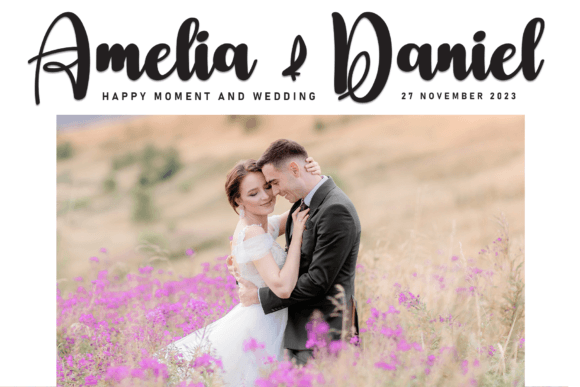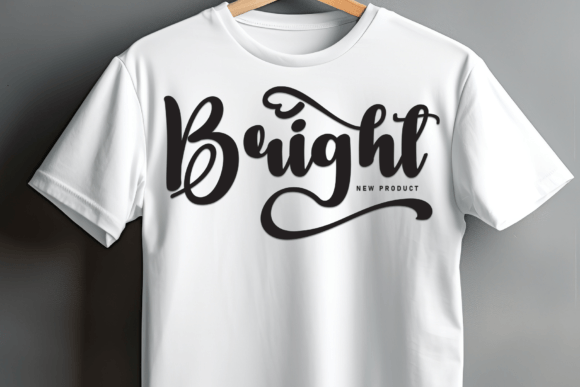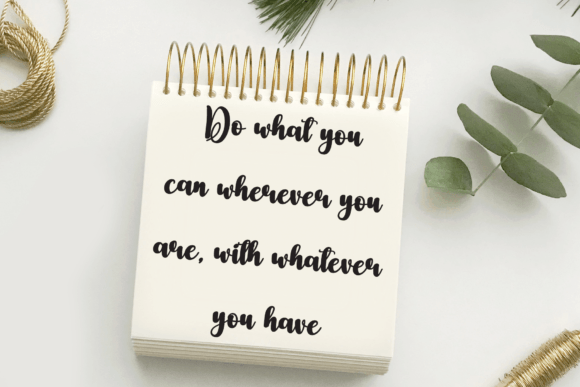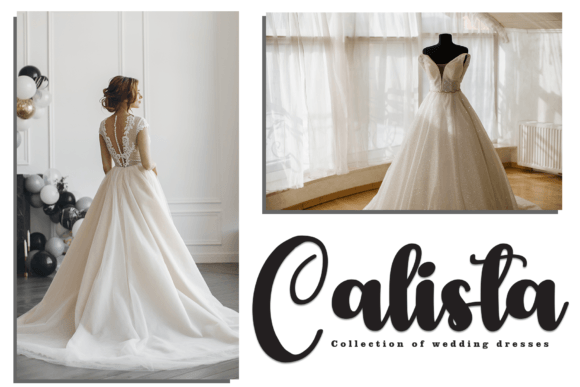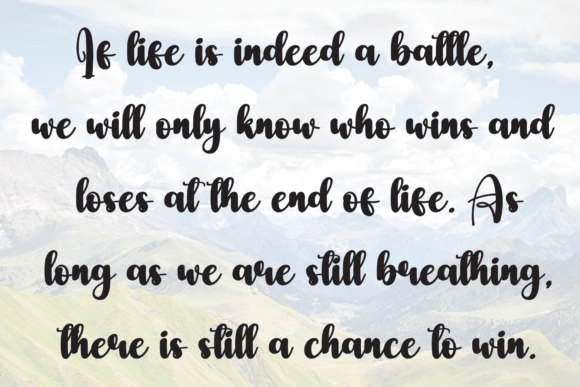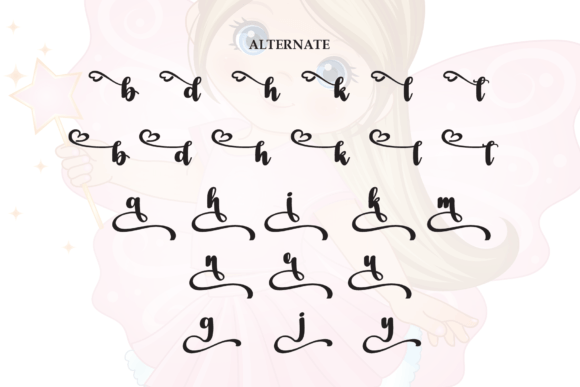
The Sweet Charm of Angel Barbie Font
Do you remember that moment when you were brainstorming ideas for a wedding invitation or a baby shower card, and you wanted something that would capture the essence of love and joy? You probably scrolled through hundreds of fonts, trying to find the perfect one that would convey your emotions and make the recipient smile. That’s when you stumbled upon Angel Barbie Font, and everything changed!
Angel Barbie Font is a beautiful, handwritten display font that exudes warmth and friendliness. Its purpose is to add a touch of sweetness and playfulness to any design, making it perfect for weddings, birthdays, and other celebrations. As a designer, you’ll appreciate the versatility of this font, which can be used for a wide range of projects, from invitations to social media graphics.
Angel Barbie Font Key Features
- Font Family: Angel Barbie is a unique, custom font designed to resemble a child’s handwriting.
- Unique Characteristics: Features a playful, whimsical feel with subtle imperfections, giving it a childlike charm.
Angel Barbie Font Review
When I first saw the Angel Barbie Font, I was immediately drawn to its whimsical and feminine feel. ✨ The font’s delicate lines and flowing curves evoke a sense of elegance and sophistication, making it perfect for projects that require a touch of magic and wonder. ✨ The font’s versatility also shines through, as it can be used for a variety of applications, from children’s books to wedding invitations.
- The font’s unique blend of classic and modern elements makes it a standout in any design.
- ⚠️ The font’s limited character set may make it less suitable for projects that require a wide range of special characters.
- ⚠️ The font’s delicate lines may not be the best choice for projects that require a bold or edgy feel.
Overall, I’m impressed with the Angel Barbie Font’s unique charm and versatility. While it may have some limitations, it’s a great choice for designers looking to add a touch of whimsy and elegance to their projects. With its high-quality vector files and scalable design, this font is sure to be a hit in the design community.
Tips: Use the Angel Barbie Font for titles, headings, and other text elements that require a touch of elegance and sophistication.
Tips: Use the Angel Barbie Font for logos, branding materials, and other visual elements that require a unique and distinctive look.
Tips: Use the Angel Barbie Font for presentations, reports, and other documents that require a touch of whimsy and personality.
The Angel Barbie Font is ideal for:
- Children’s book illustrations and design
- Party and event decorations
- Graphic design and digital art
Tips: Experiment with different font sizes,
Alternatives to Angel Barbie Font for Designers
Great Vibes is a modern, elegant font perfect for creating a sophisticated and stylish design. It’s ideal for use in wedding invitations, luxury branding, and high-end packaging.
Compared to Angel Barbie Font, Great Vibes has a more refined and polished look, making it suitable for high-end designs. It lacks the playful and whimsical feel of Angel Barbie Font but offers a more sophisticated alternative.
Pacifico is a beautiful, cursive font that exudes a sense of relaxation and calmness. It’s perfect for use in beach-themed designs, travel branding, and wellness-related projects.
Q: What is the recommended font size and line height for Angel Barbie Font?
For optimal readability, we recommend using the Angel Barbie Font at a minimum size of 12 points and a line height of 1.2 to 1.5 times the font size. This will ensure the text is clear and easy to read, while maintaining the font’s elegant and flowing appearance.